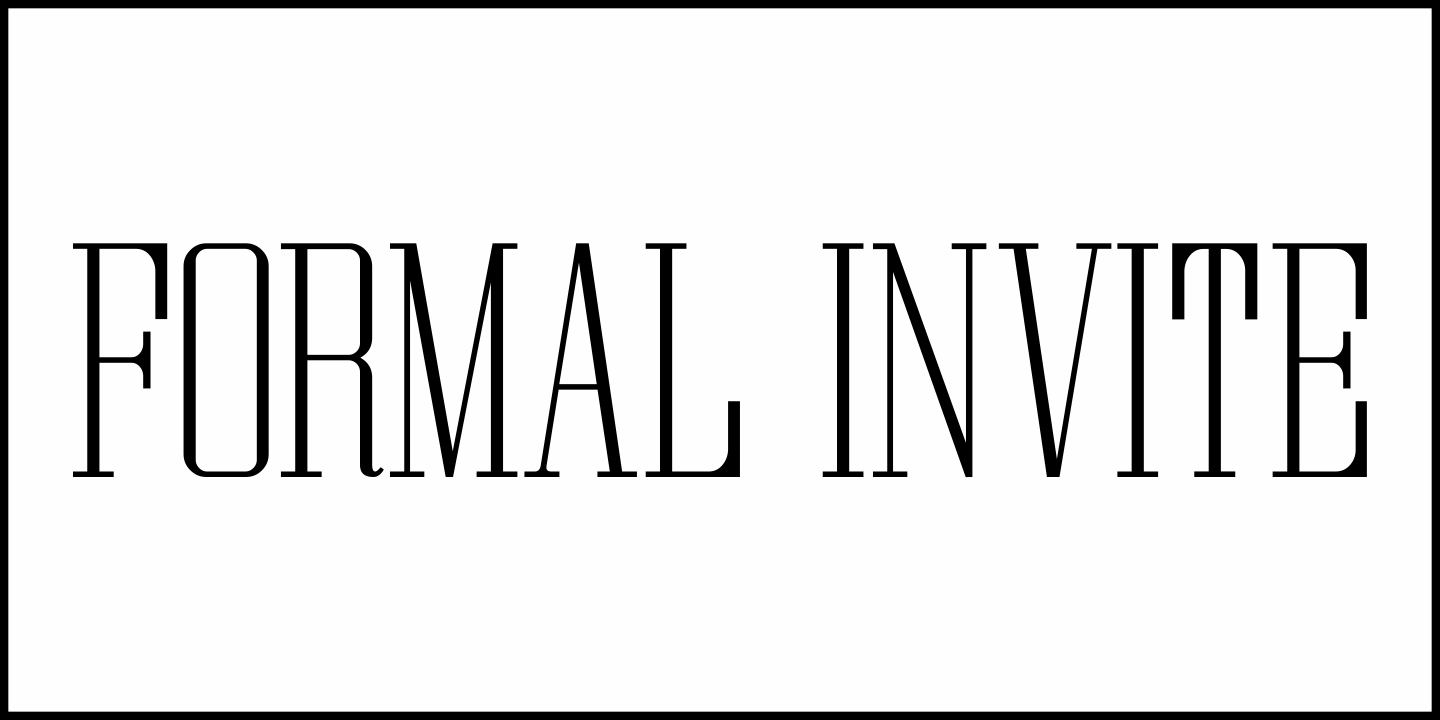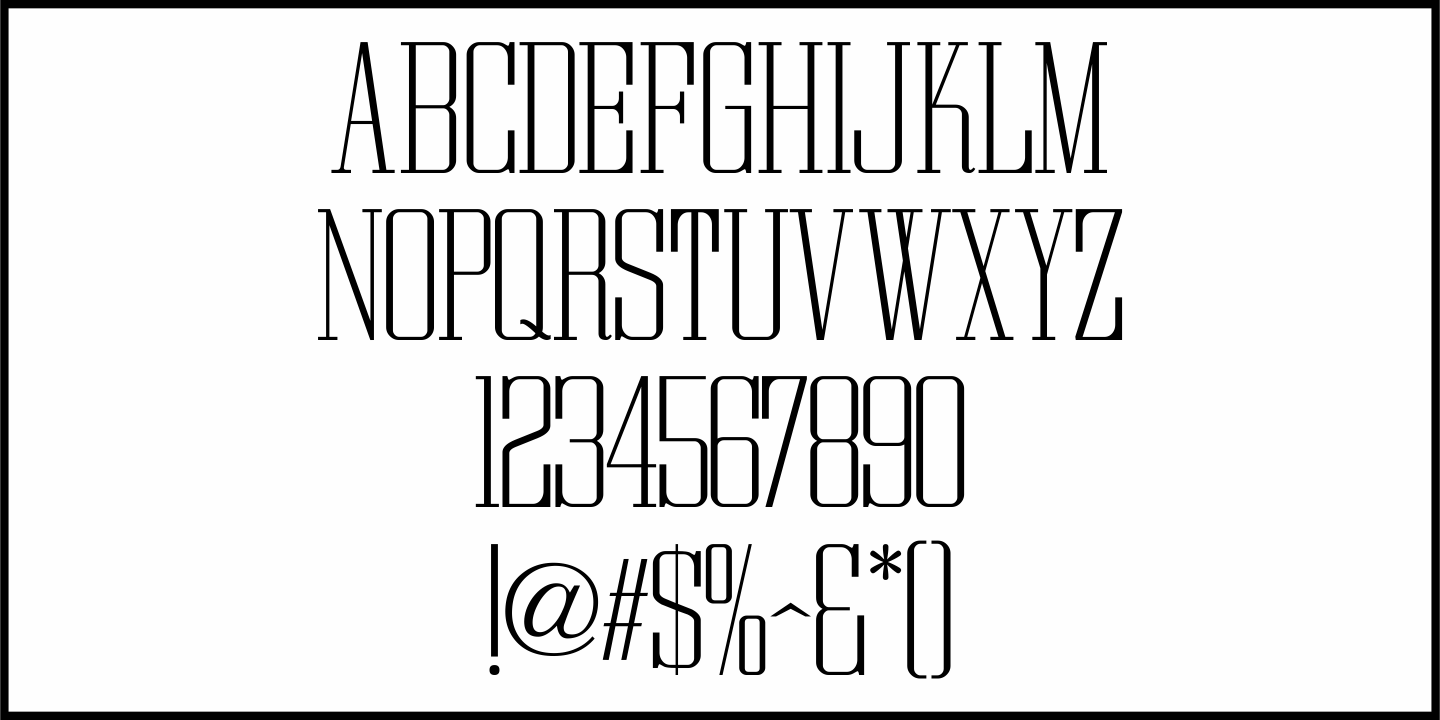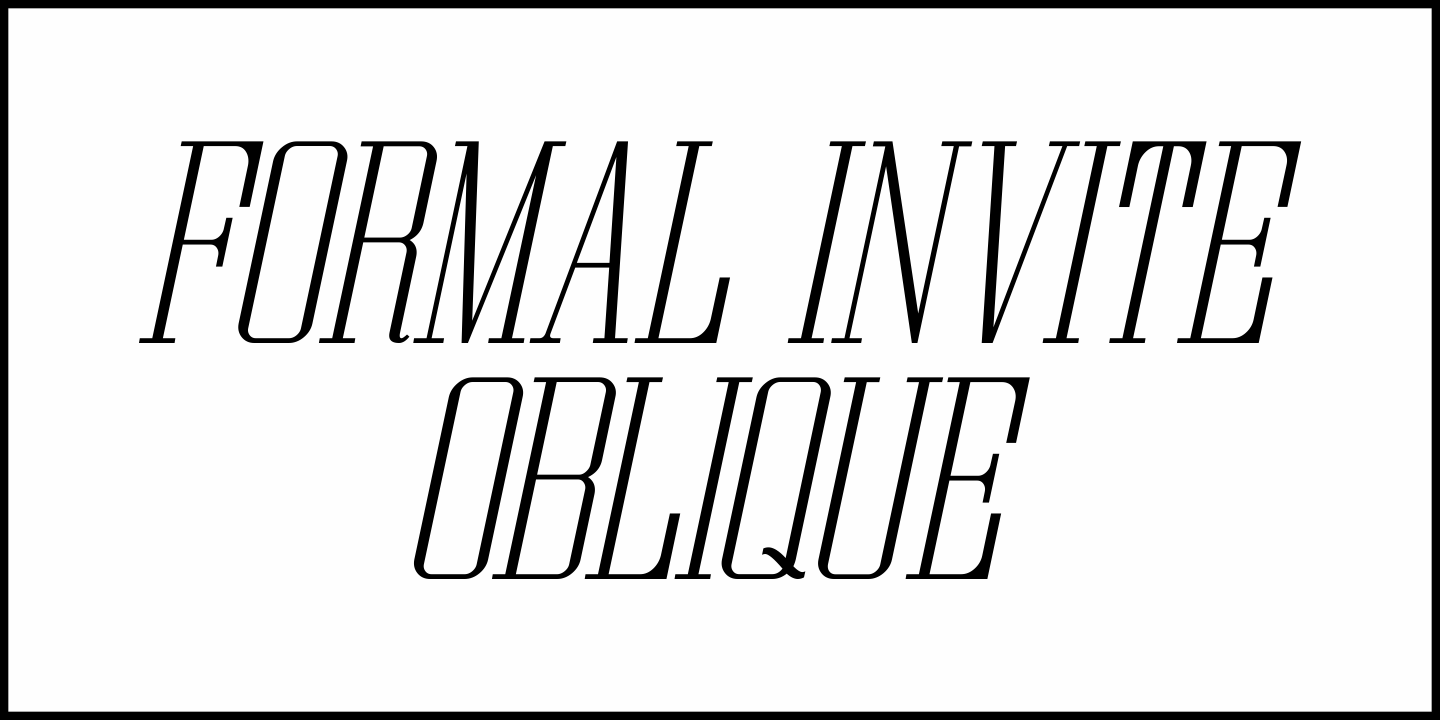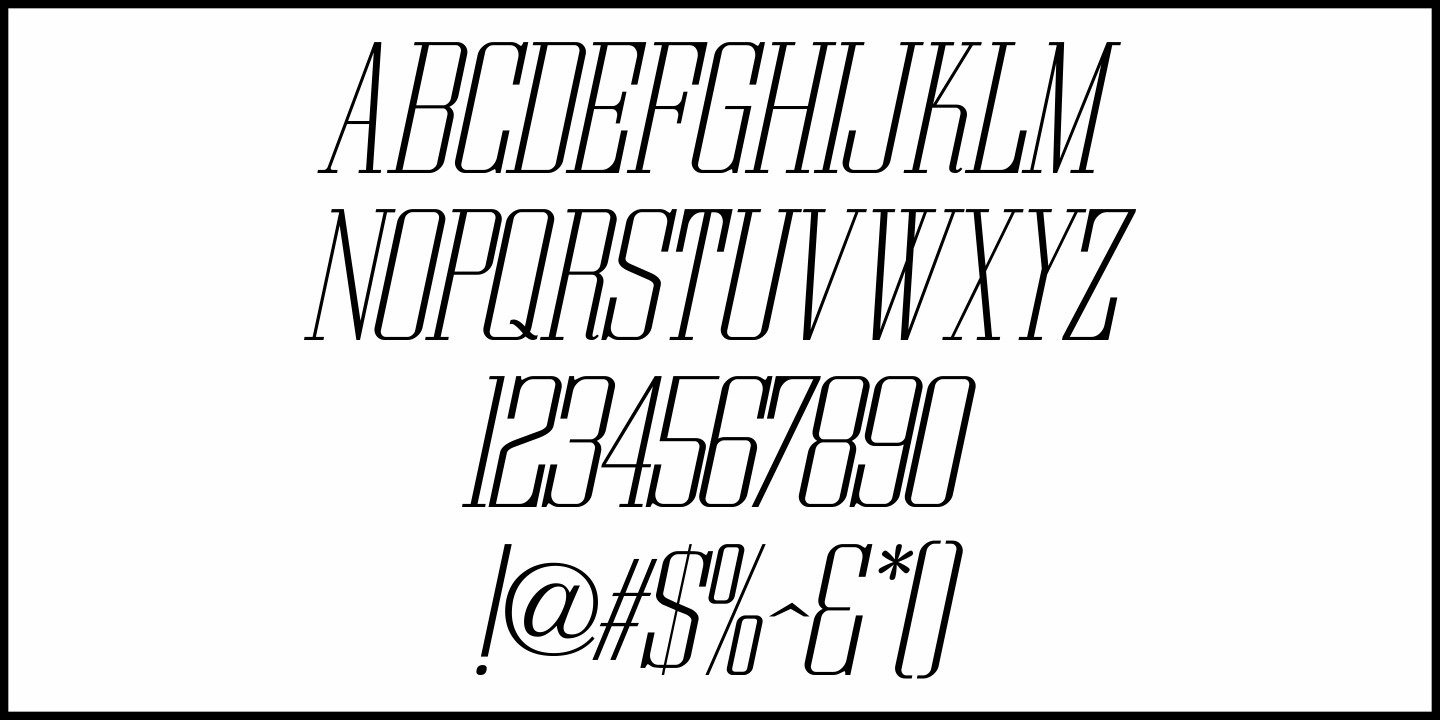
Formal Invite
The thin, condensed serif lettering found in a 1937 magazine ad for Chris Craft boats inspired Formal Invite JNL, which is available in both regular and oblique versions.